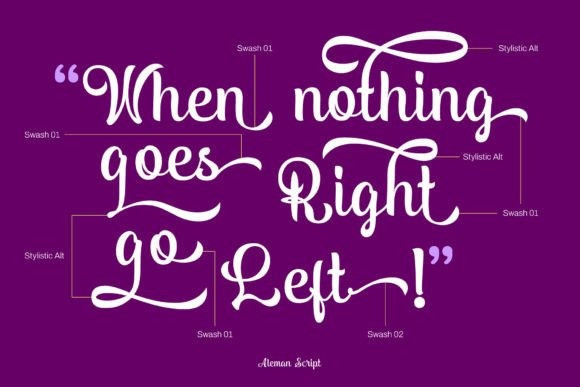
Aleman Script Font
Aleman Script Font, is a modern stylistic display script font with simple and elegant swash and other typographic features. It could be nice for lettering, logo design, branding, and any design project.